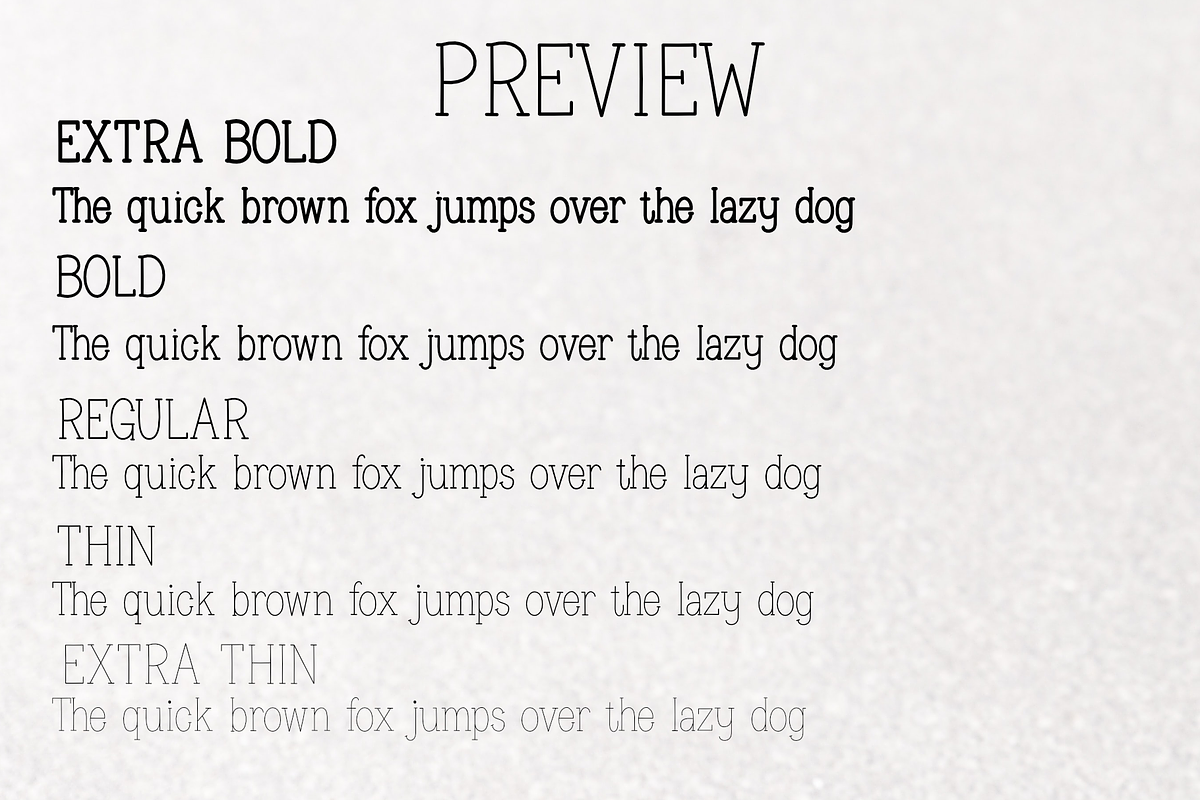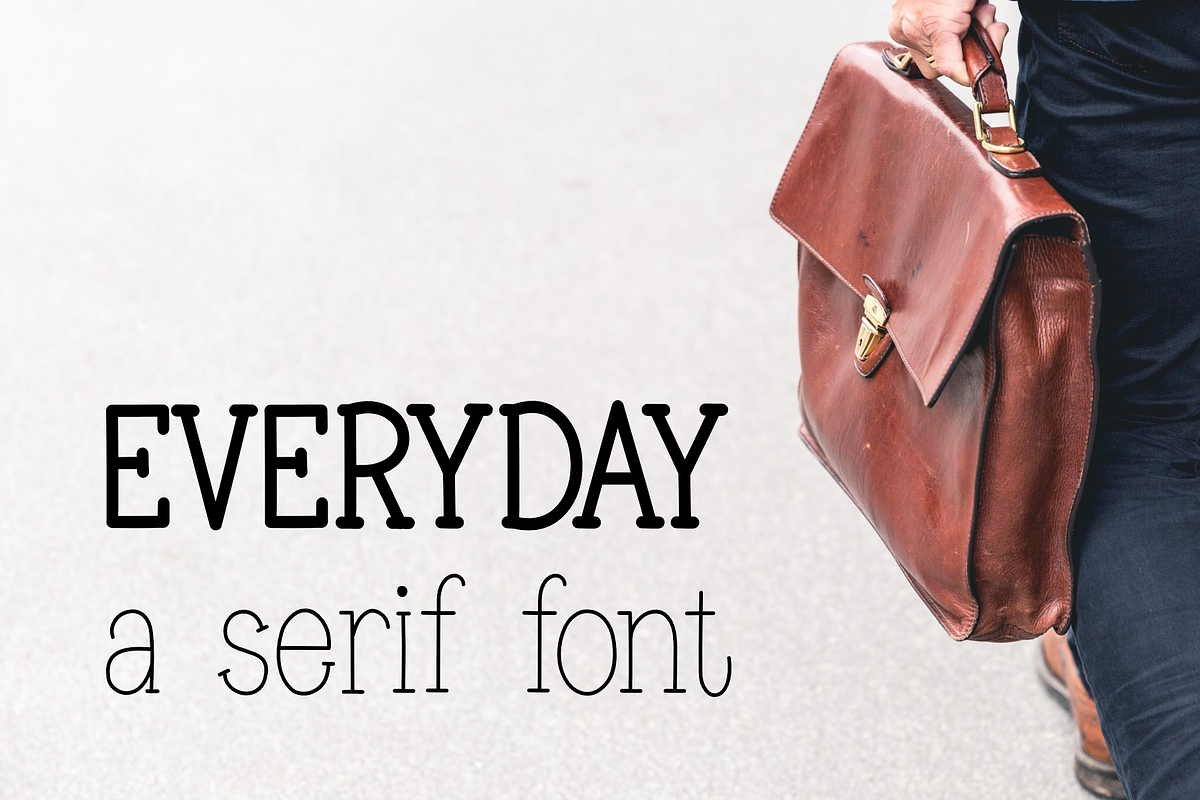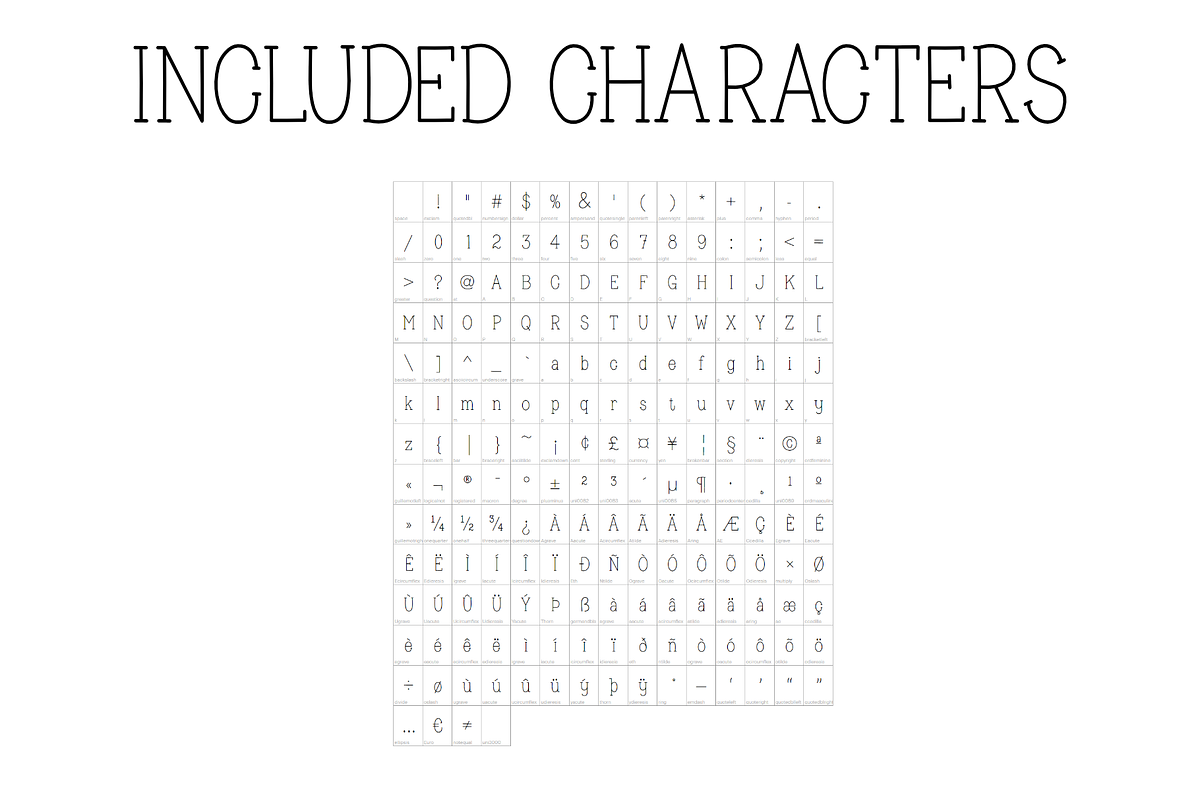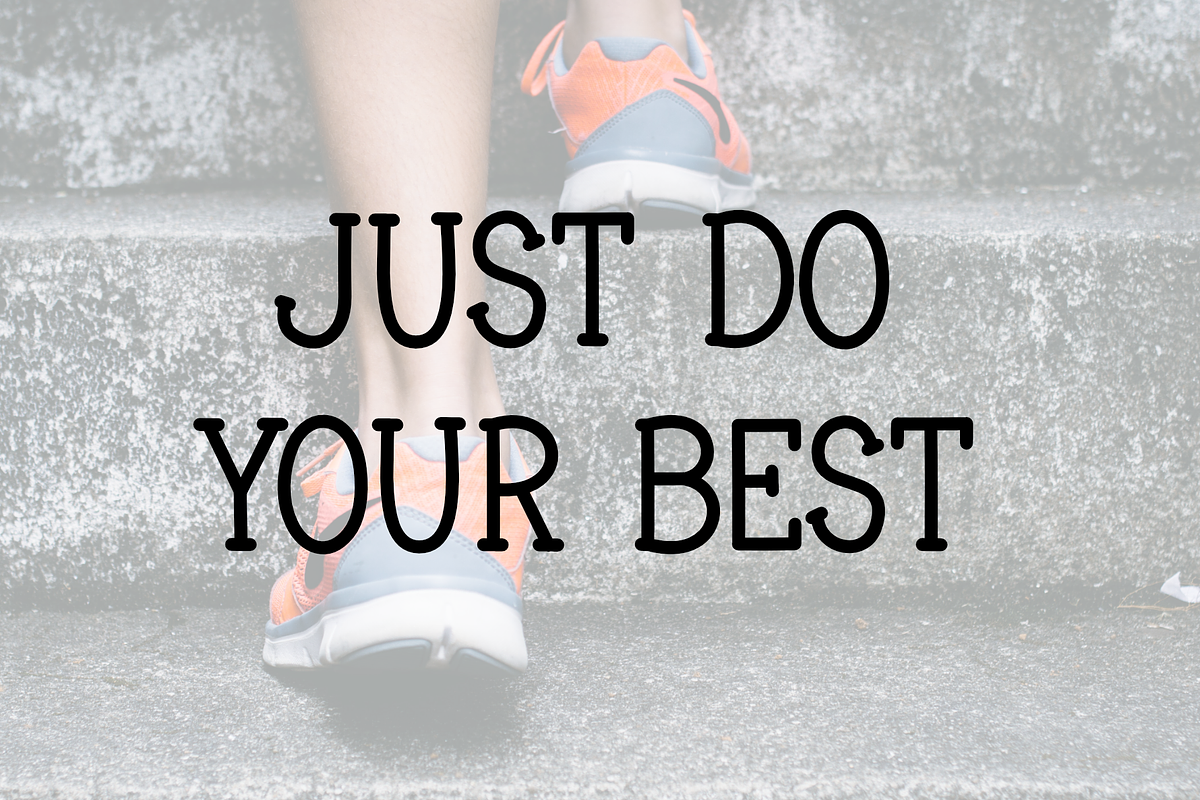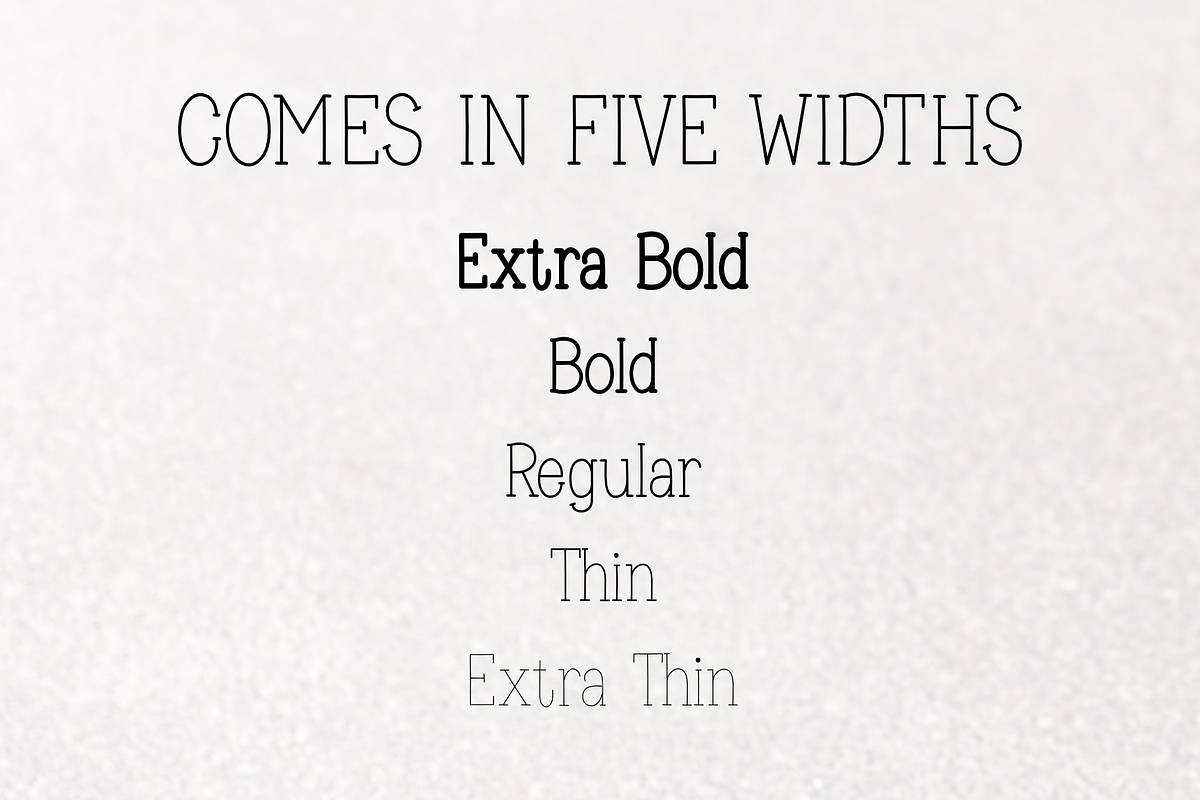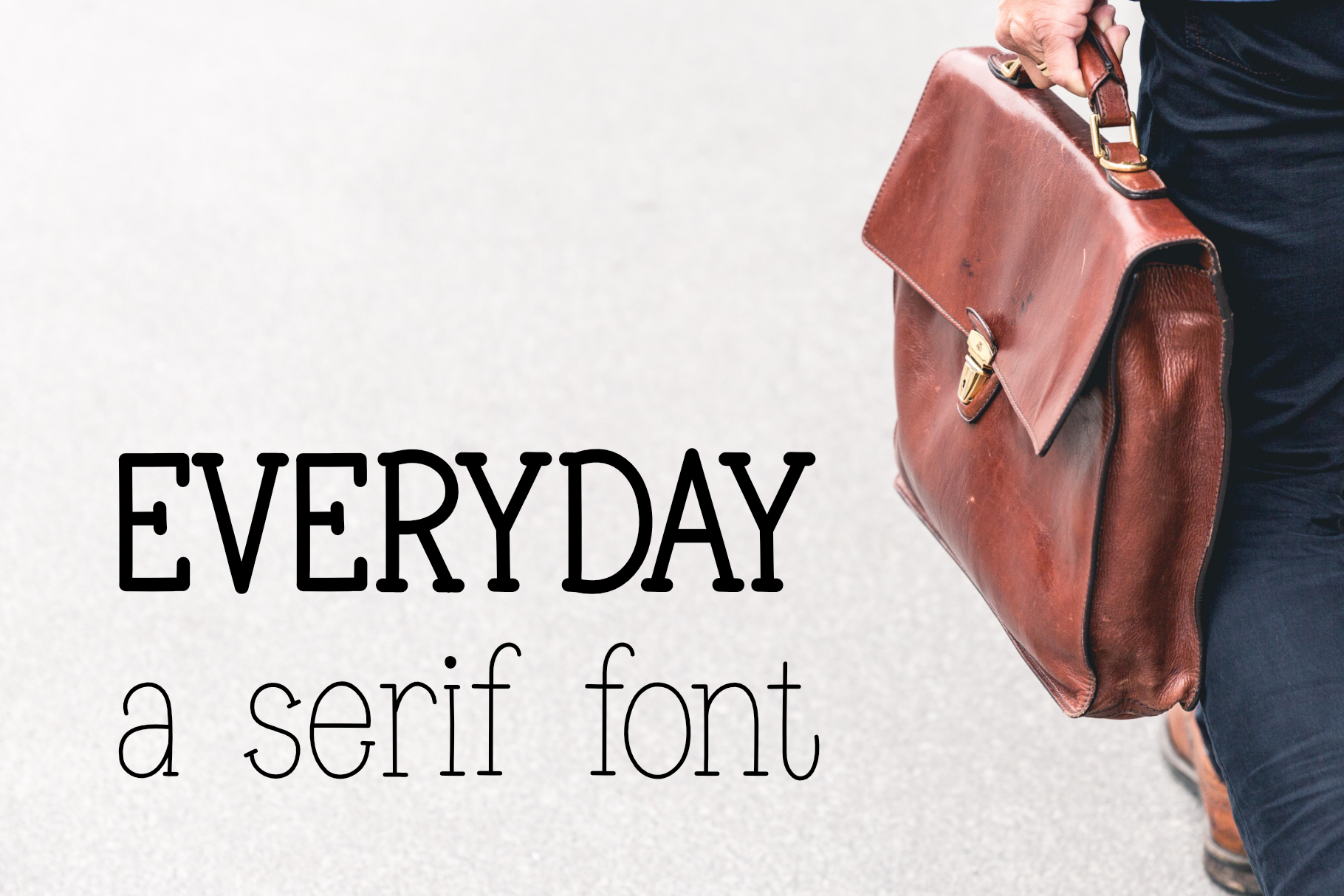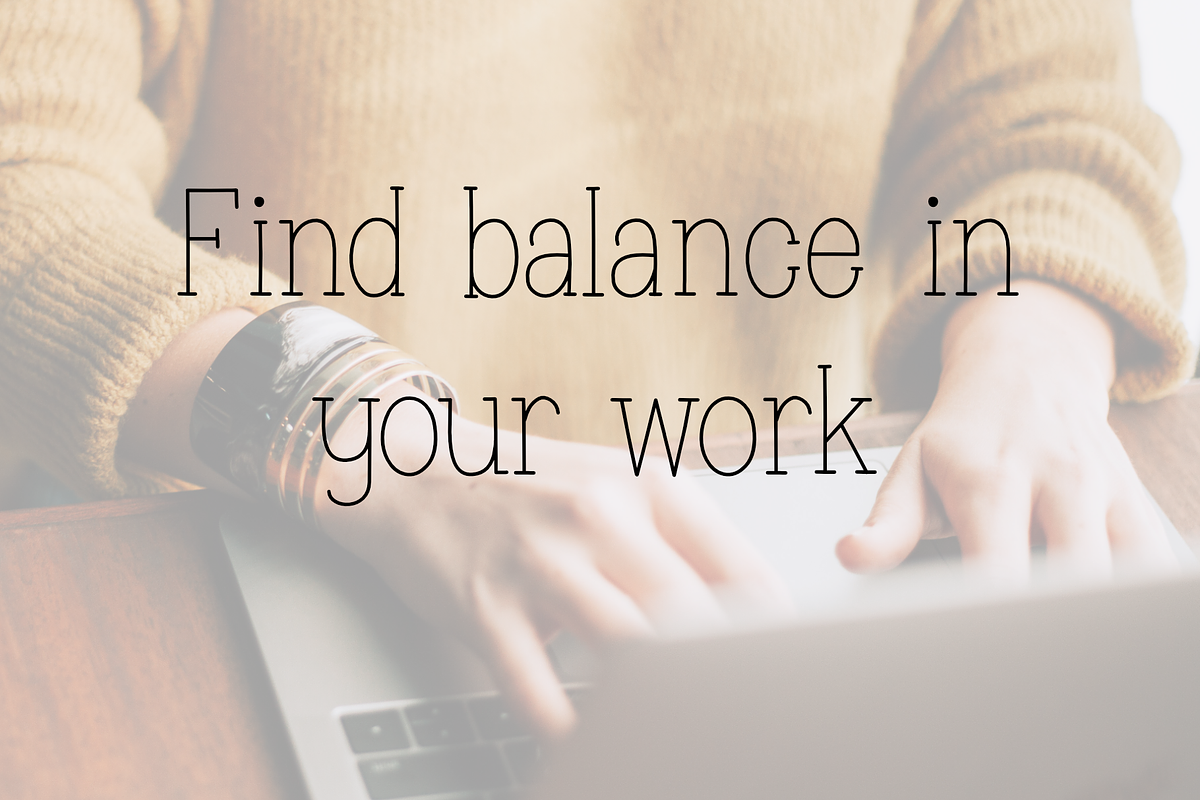
Everyday | a handwritten serif font
Everyday is a cute handwritten serif font.
- everyday font in five widths; extra bold, bold, regular, thin & extra thin